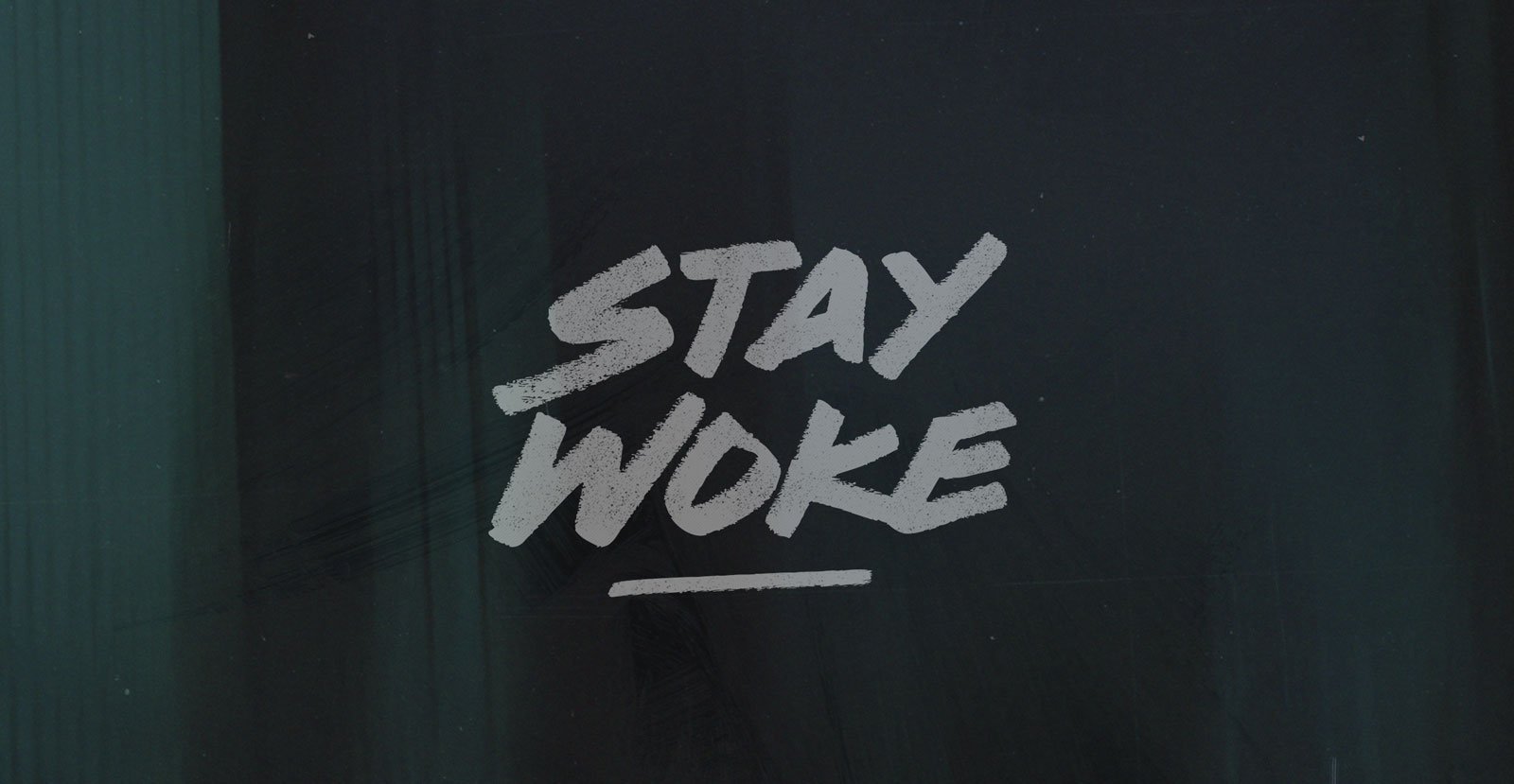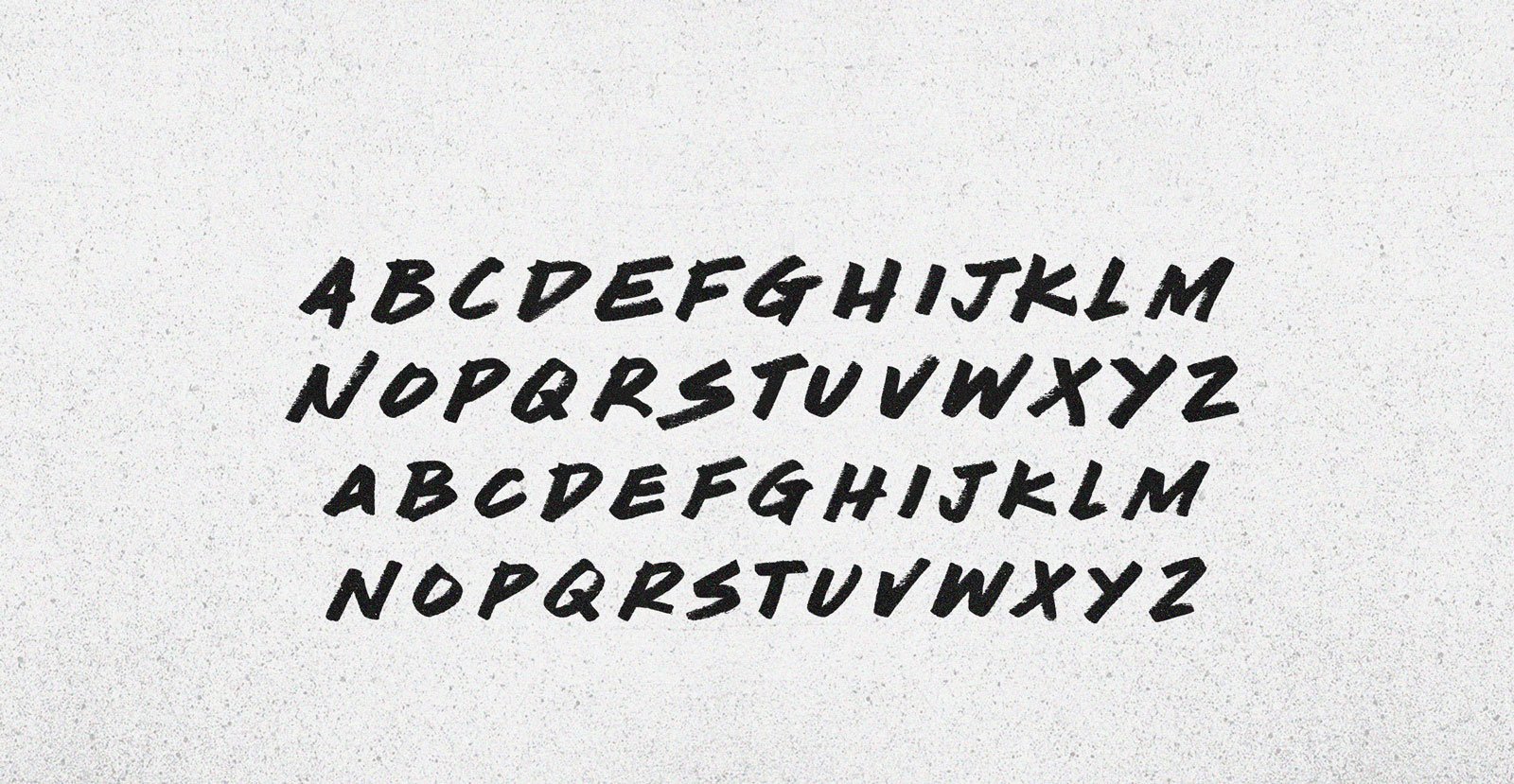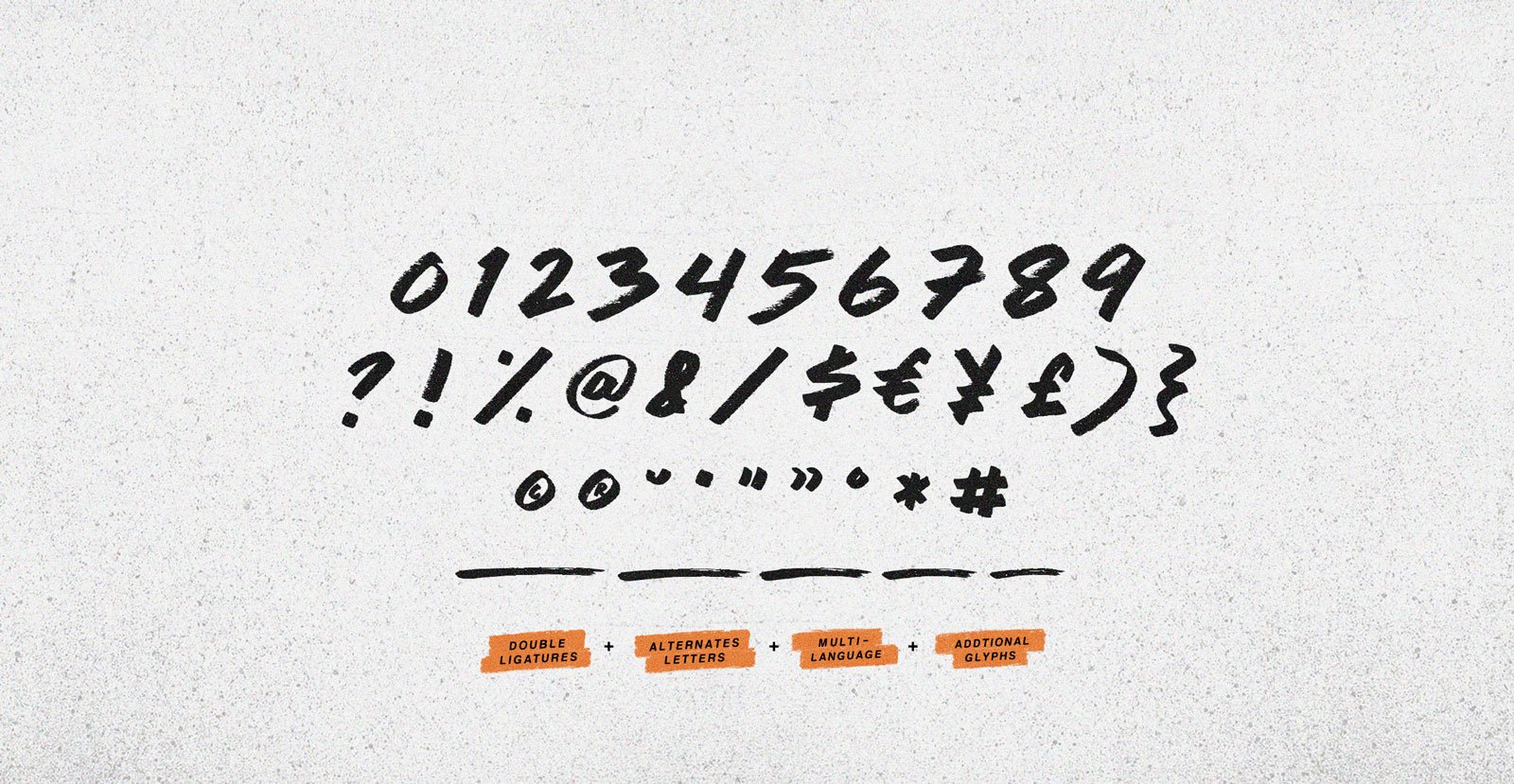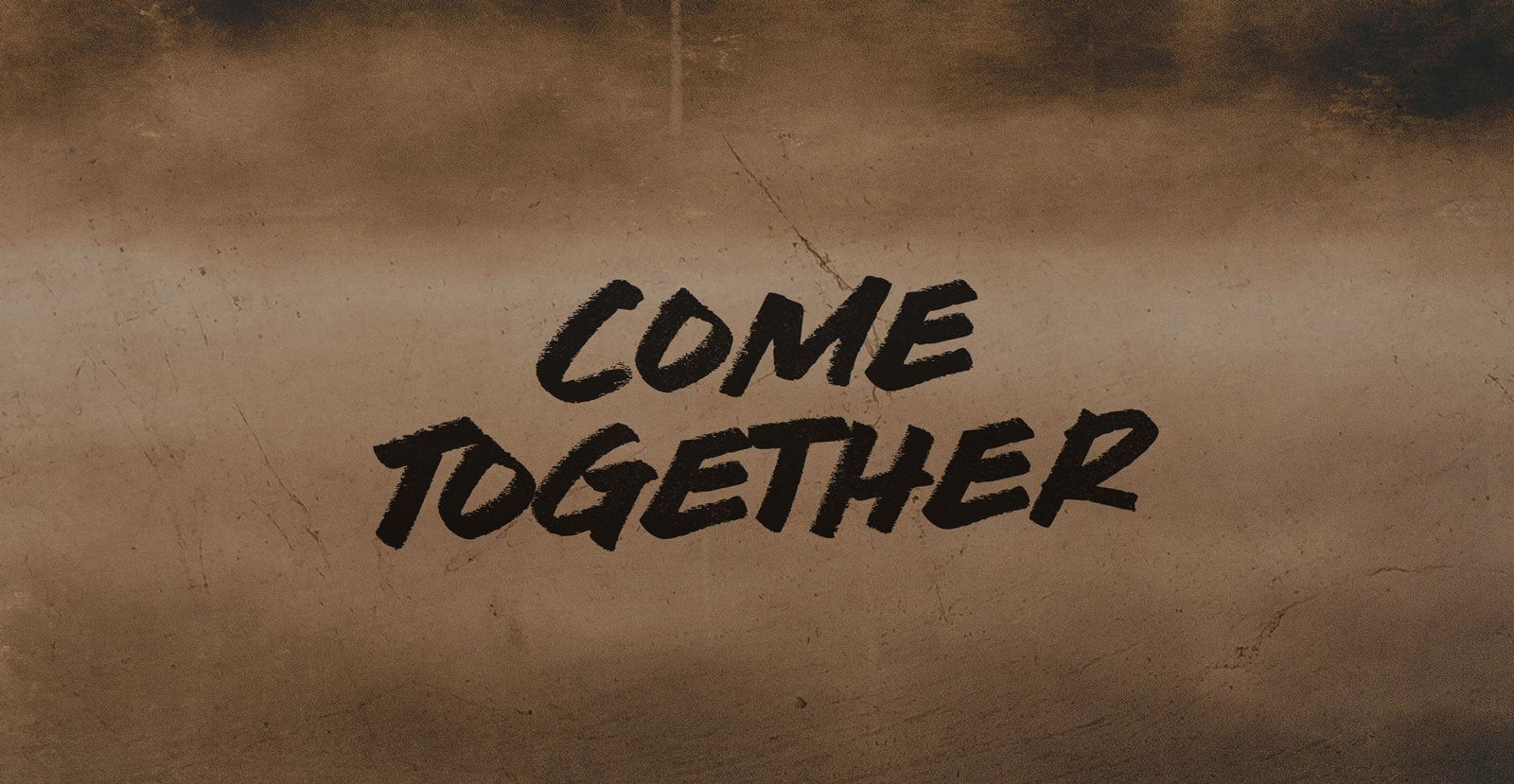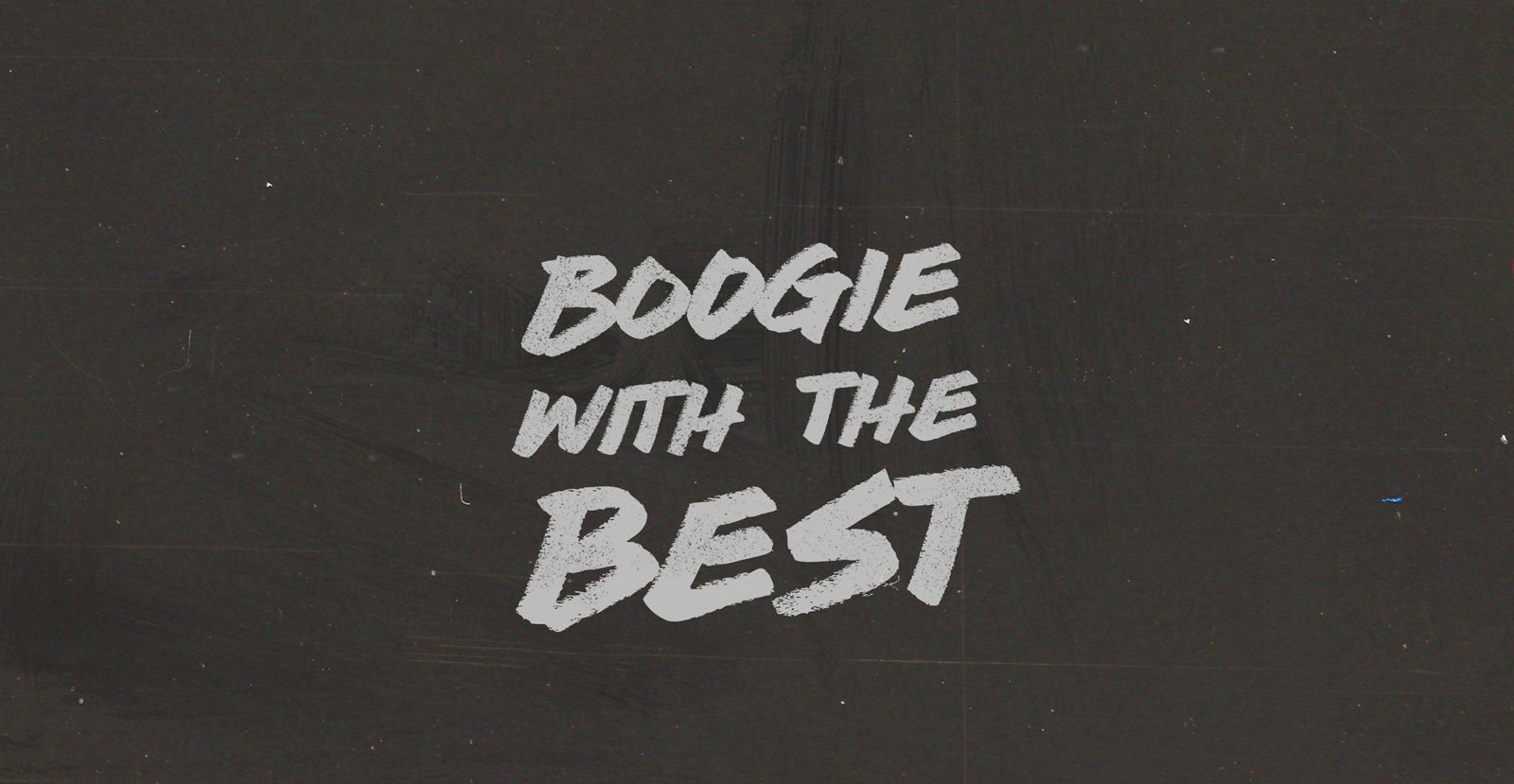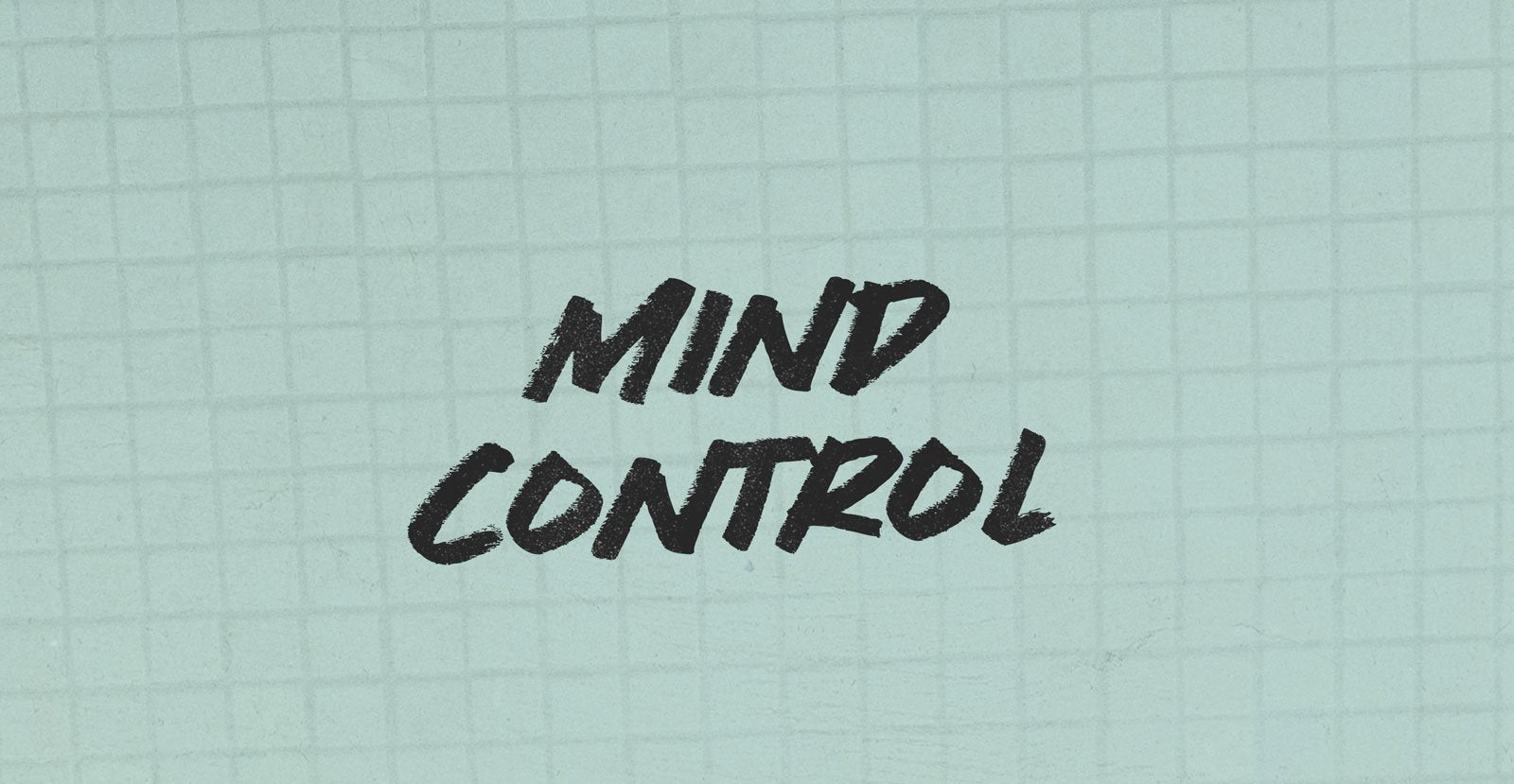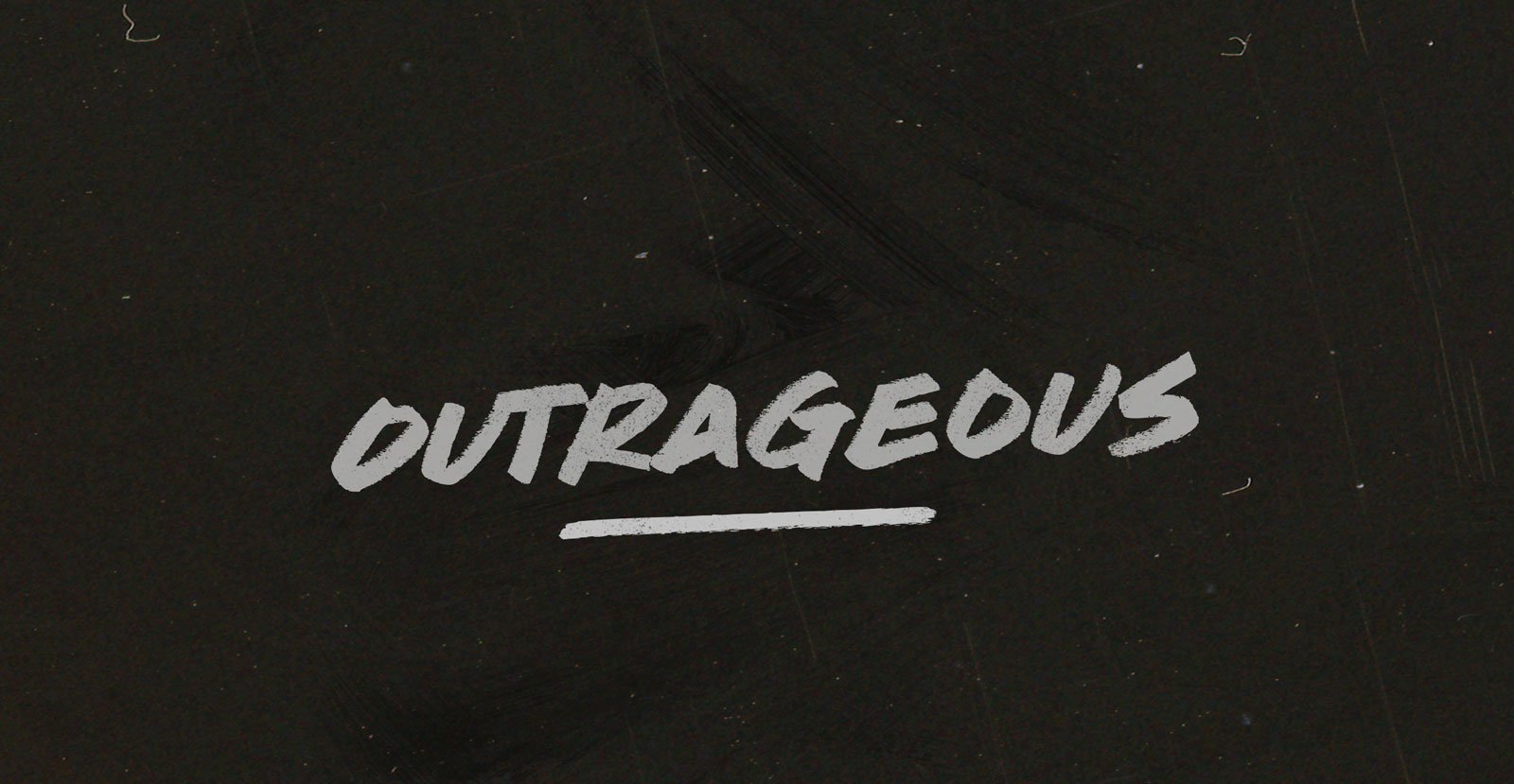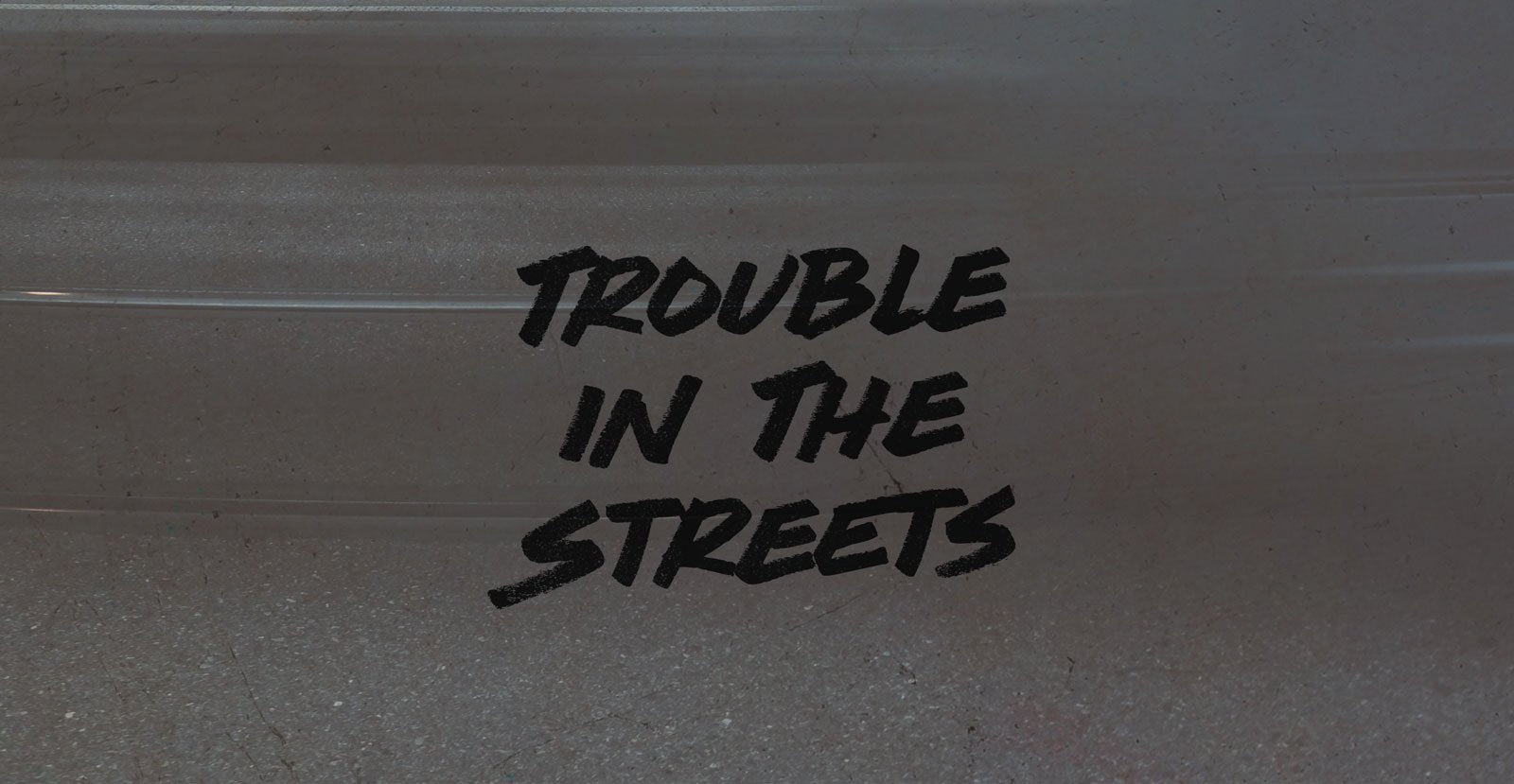
Stay Woke
Bottom bunk, up late, conversation between cousins. I’m death, in this instance. Stay Woke, knowing the chances of survival—that binaries don’t admit second best. Still stumbling into somnolence over bars limbo low; speech slurs, breath slows.